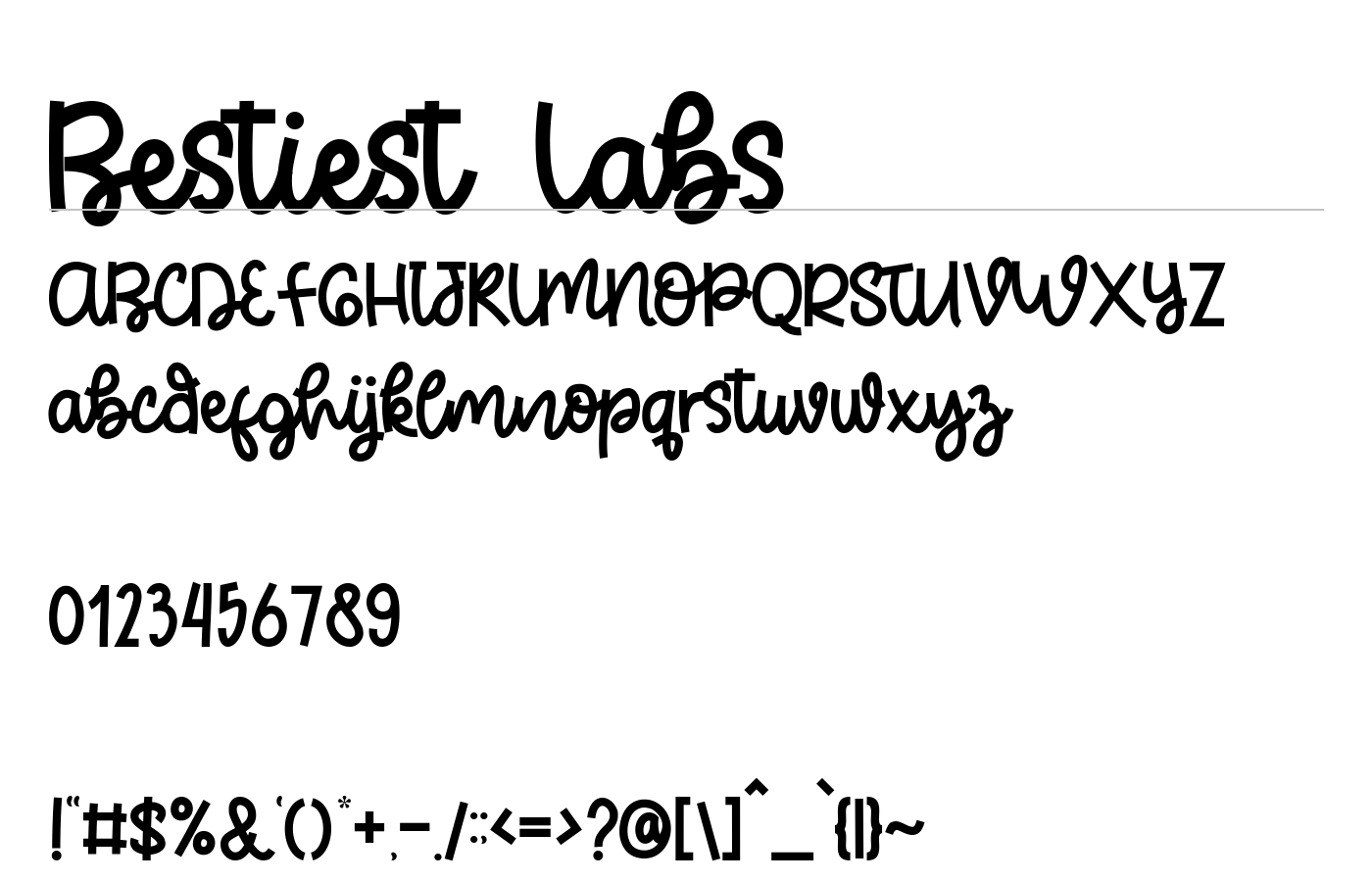
Bestiest Labs is a playful, hand-drawn sans serif font with a casual, friendly vibe. Its irregular letterforms and slightly bouncy baseline give it a lively, approachable feel, perfect for creative, youthful brands or informal projects. This font works well for logos, children's products, social media graphics, and any design seeking a fun, personal touch.
Bestiest Labs Font
About Bestiest Labs Font
| Font family | Bestiest Labs Font |
| Designer | Zain Fahroni |